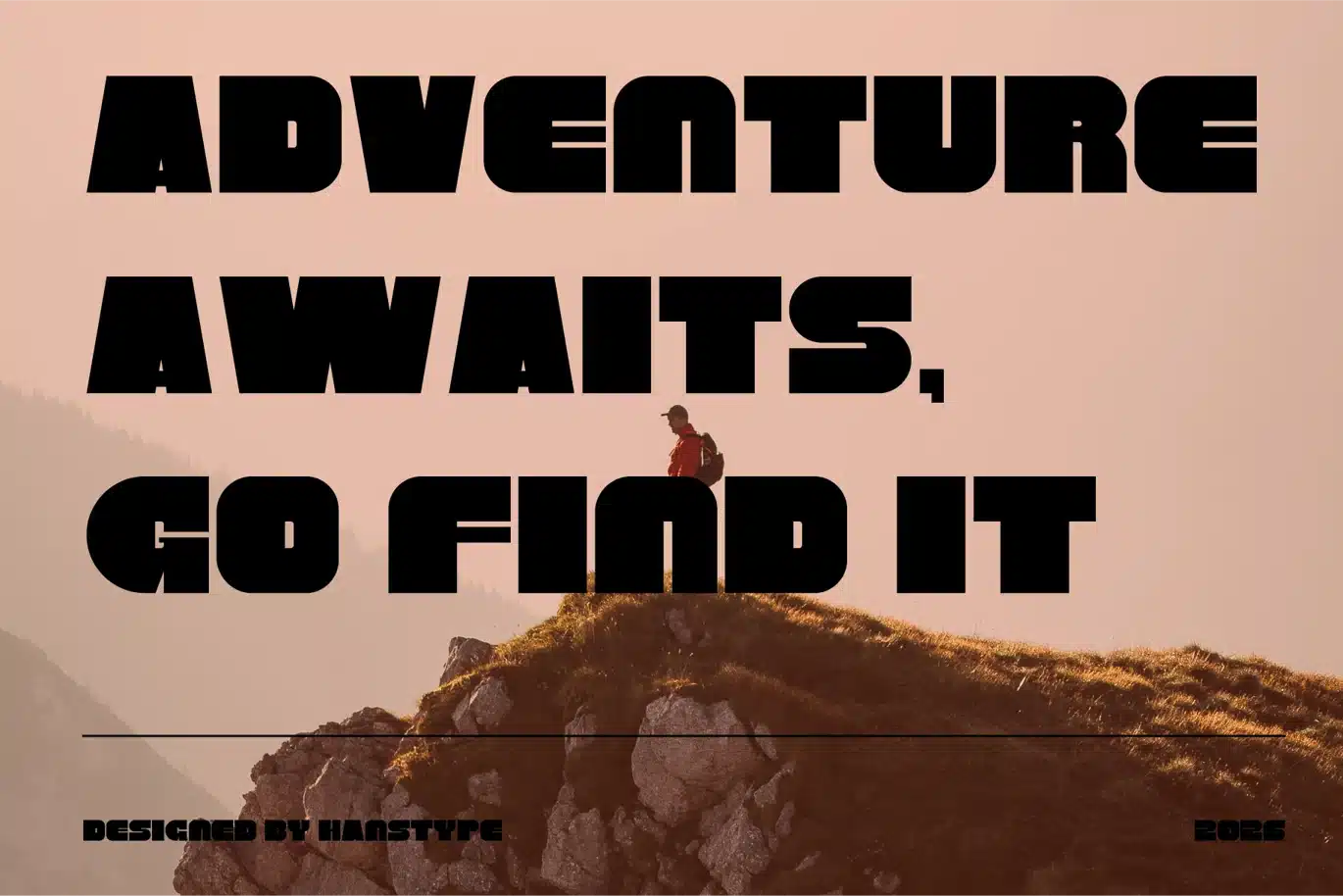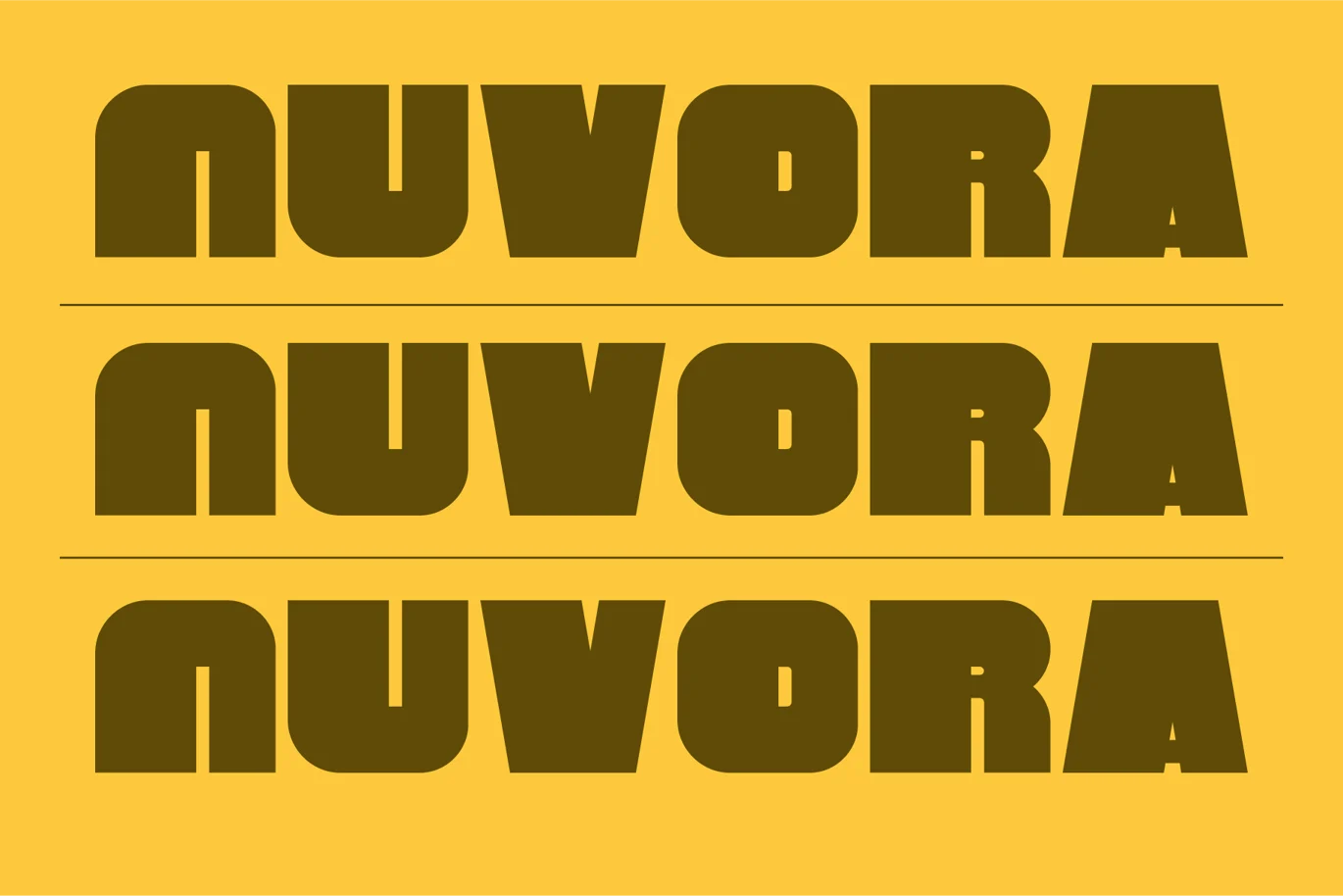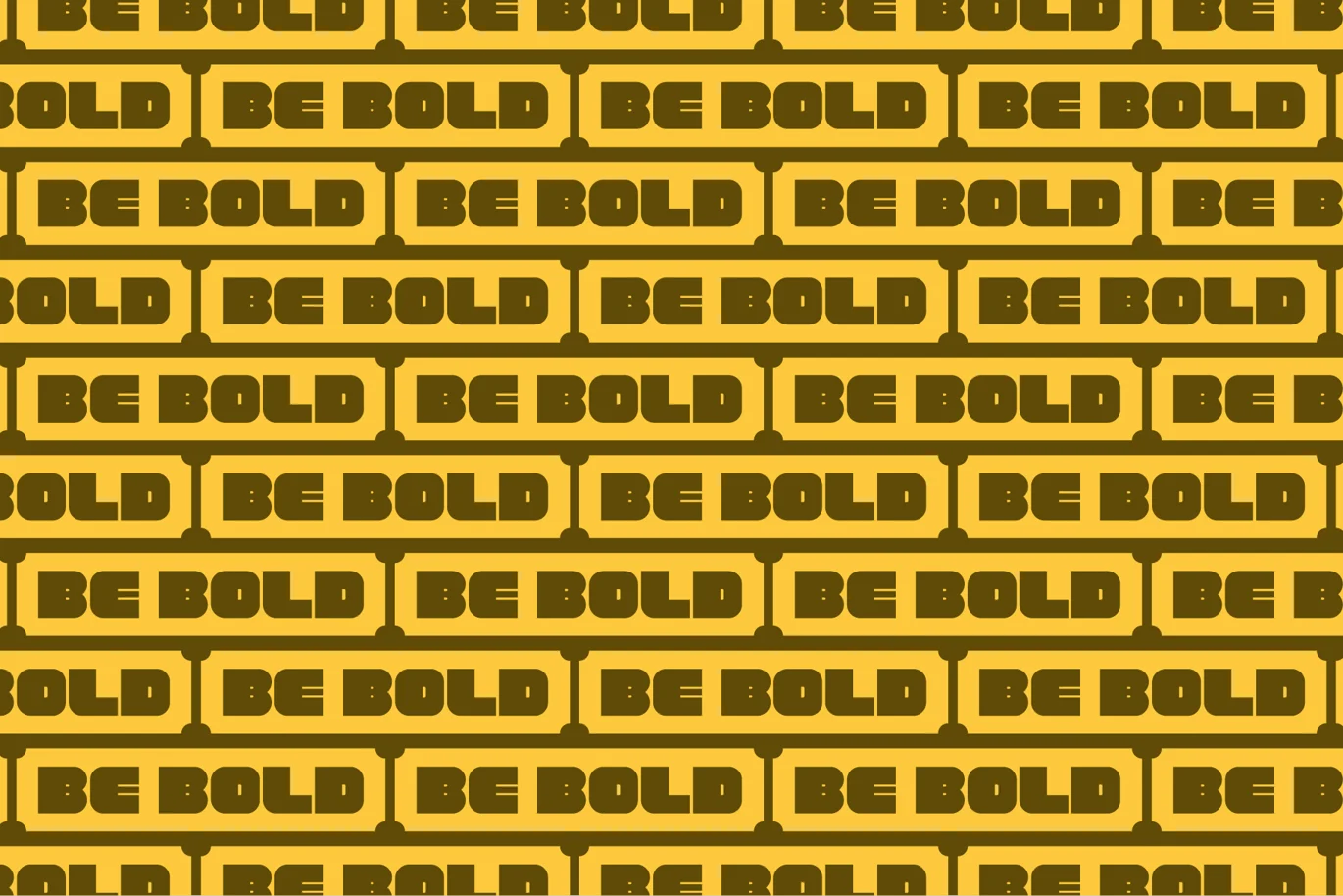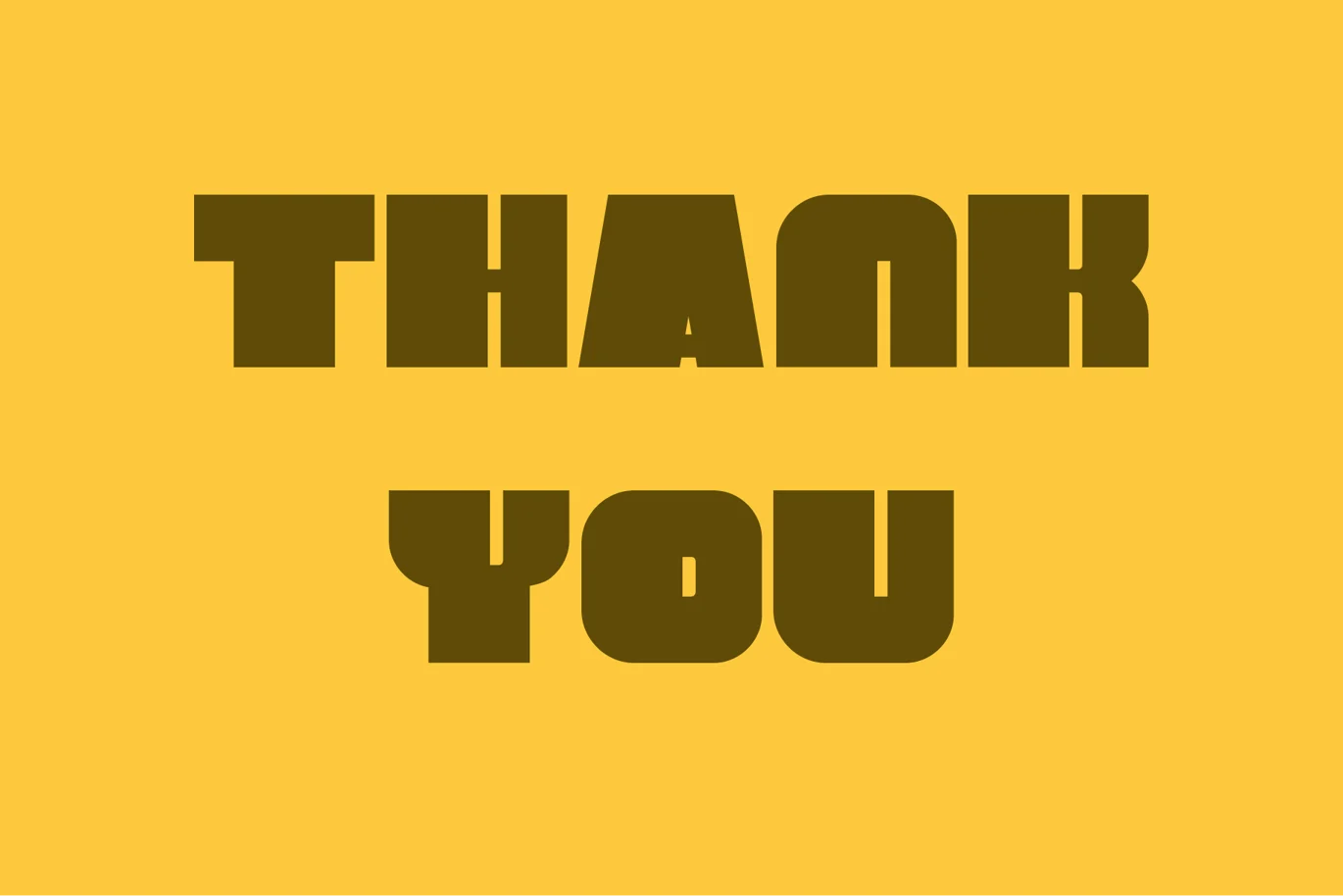
Nuvora is a bold, expressive typeface crafted for projects that require a strong, refined presence. With its sleek, confident design, it excels in branding, editorial work, and other high-visibility projects where typography plays a central role.